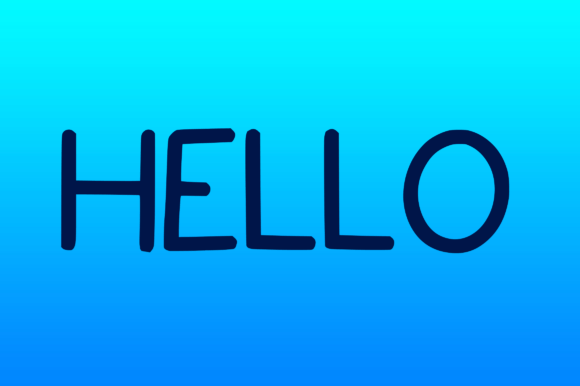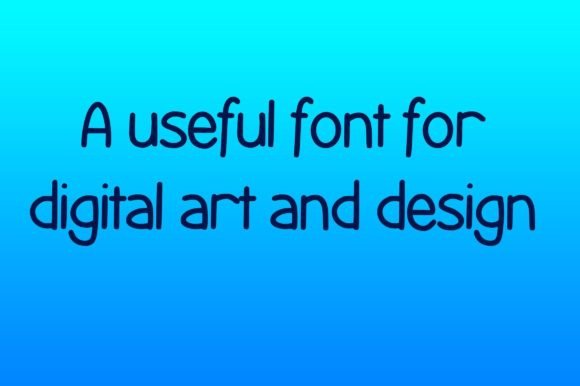
Captain Webster Font
Captain Webster Font: Versatile Handwriting for Creative Designs
“Captain Webster” is a plain, cute, and cool handwritten font that offers versatility for a wide range of creative applications. It’s perfect for various projects, from crafts to digital art and presentations.
Key Features of Captain Webster Font
• Plain Style: Brings simplicity and approachability to designs.
• Versatile Use: Suitable for many projects, including greeting cards and printables.
• Cool Look: Adds a touch of charm to your typography.
Crafts and Digital Art
Captain Webster’s cute style is ideal for creating engaging crafts and digital artworks.
Presentations and Essay Writing
Use Captain Webster to design approachable presentations and essay materials that convey authenticity.
Card Design and Printables
The font’s charming look makes it perfect for creating eye-catching cards and printable designs.
Why Choose Captain Webster Font?
Captain Webster offers more than just cute letters. Here’s why it stands out:
• Adapts well to various design needs and themes
• Conveys a sense of creativity and versatility
• Adds a personal and authentic touch to designs
By using Captain Webster, you open up new design possibilities. Its plain style works well in many contexts, from poster designs to website headers. The font’s ability to convey simplicity can inspire creative ideas and help you approach projects from a fresh, approachable perspective.
Captain Webster in Modern Design Trends
This font aligns perfectly with design trends that favor authenticity and personal touch. Its handwritten style adds a unique quality that resonates with audiences seeking genuine connections, making it particularly effective for brands targeting a friendly, approachable image.
If you’re looking for a font that’s both plain and versatile, Captain Webster is an excellent choice. It’s perfect for adding a touch of simplicity to your work, especially for projects that need a friendly, relatable feel.
Explore how Captain Webster can transform your designs. From branding projects to personal creations, this font brings a charming and adaptable quality to your work.